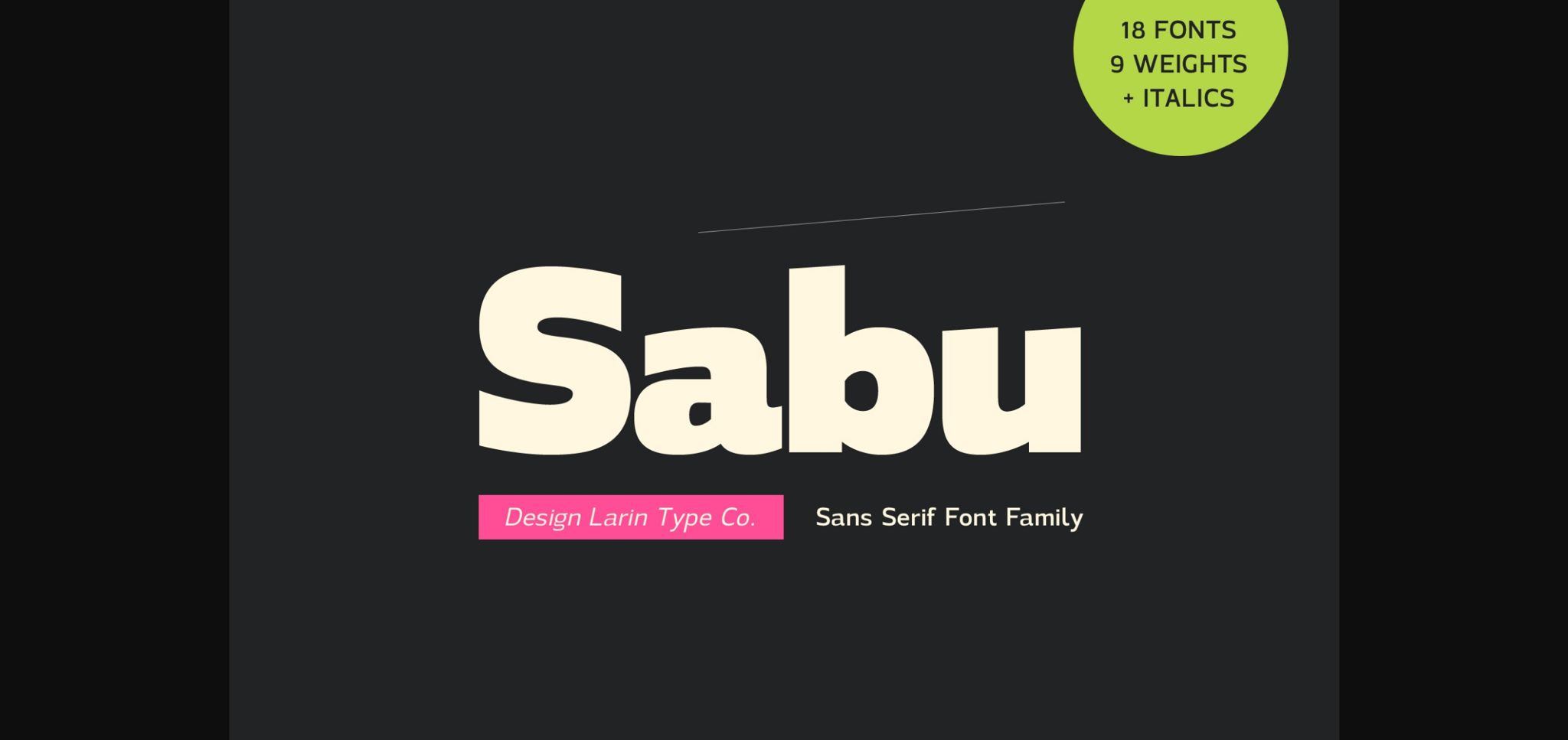
About Sabu Font
Sabu is a multitasking, modern sans-serif font family, and a great solution for anyone in your project. It includes the upright and Italic styles, each of which has eight weights from thin to extra bold. This is a multi-purpose one that is perfect for big and small text, it is constructed modern and easy to read. With it, you can create logos, and banners, and use them in advertising, packaging, book covers and magazines, headings, descriptions, and much more.